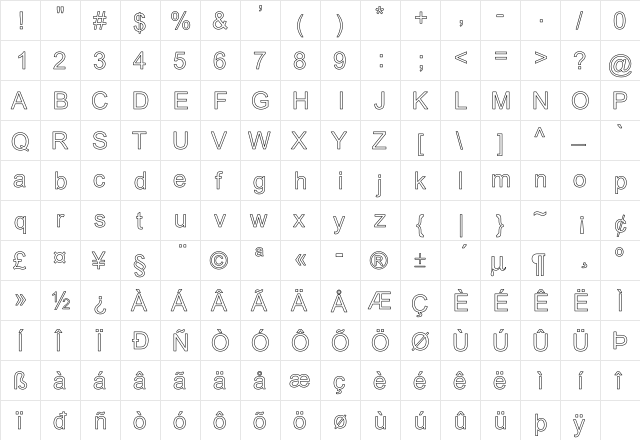
Dixon Ho Regular
Design Context for Dixon Ho Typeface
Dixon Ho is a composed and adaptable typeface that performs quietly and consistently across a wide range of design contexts.